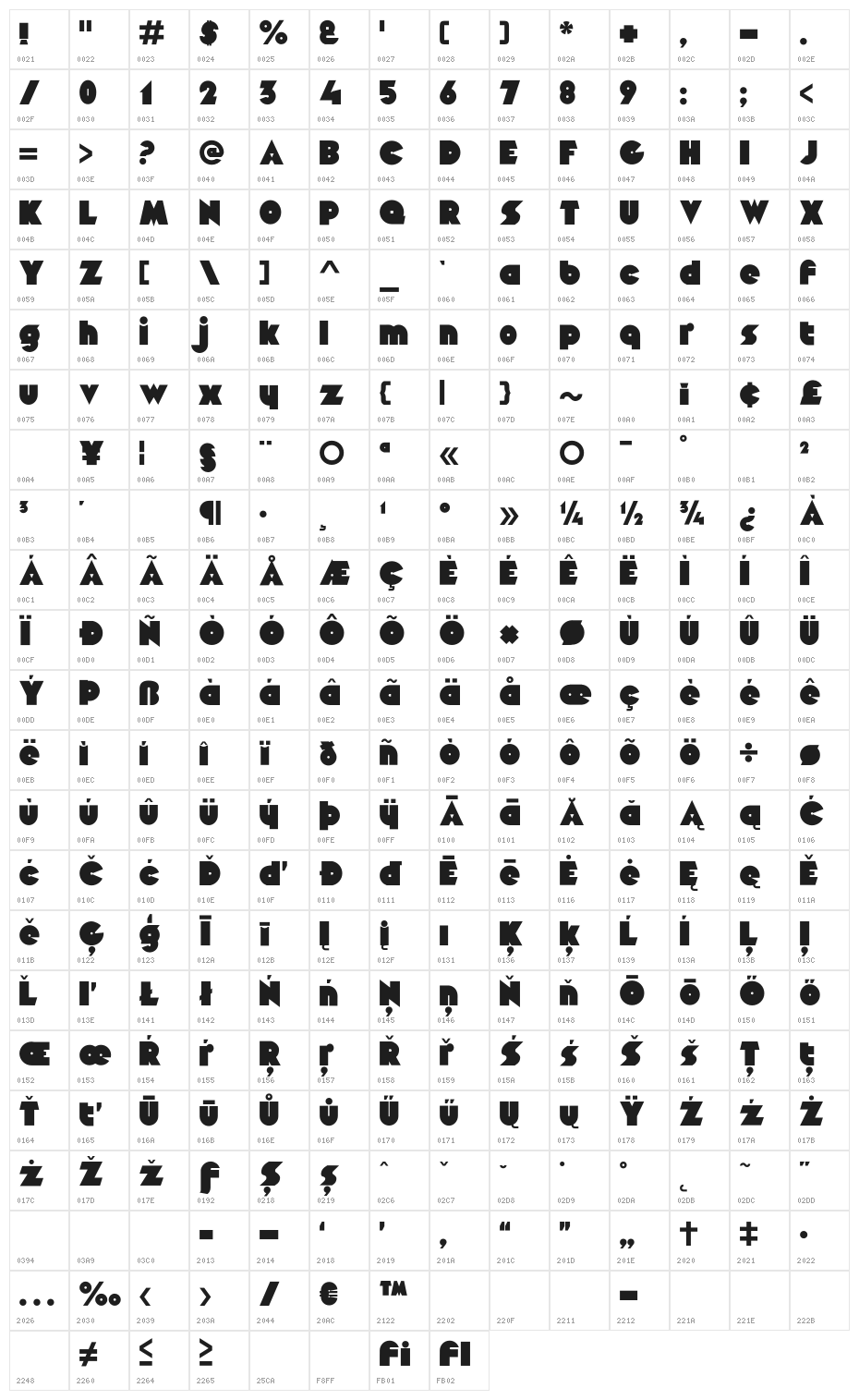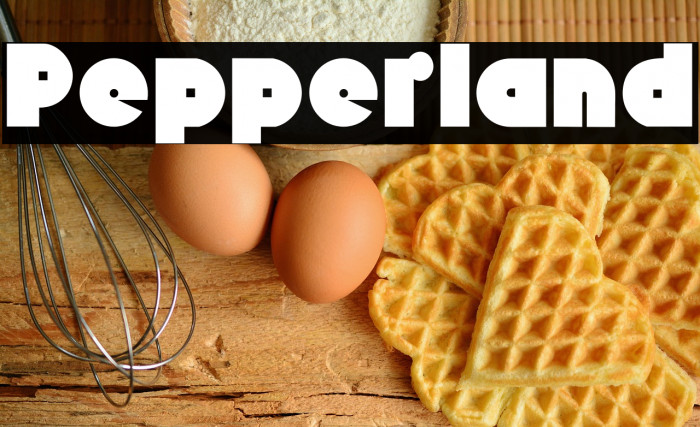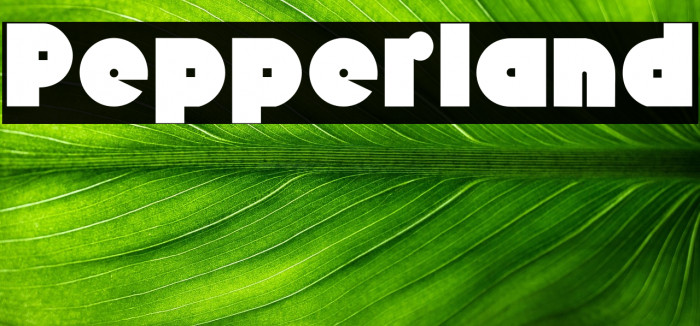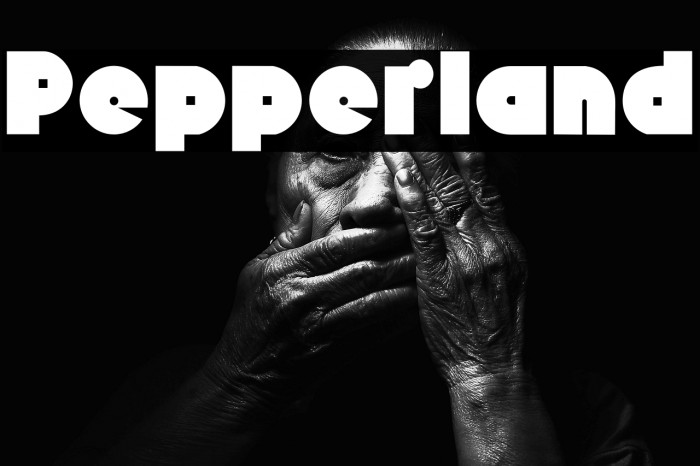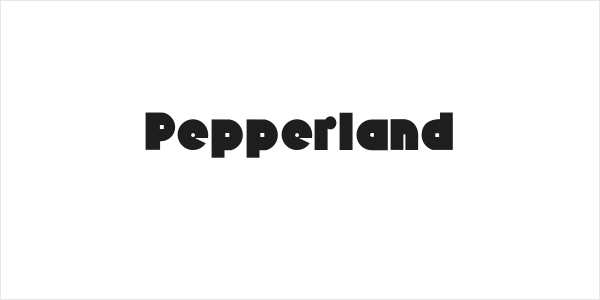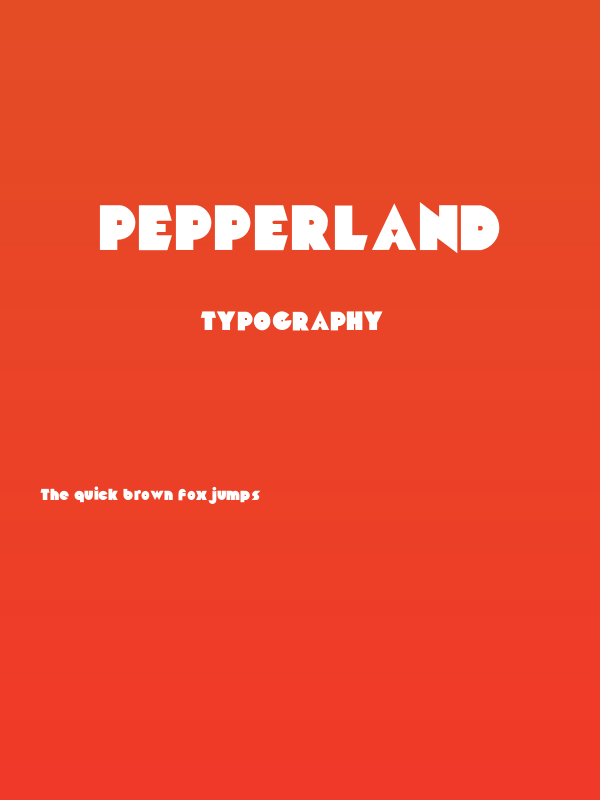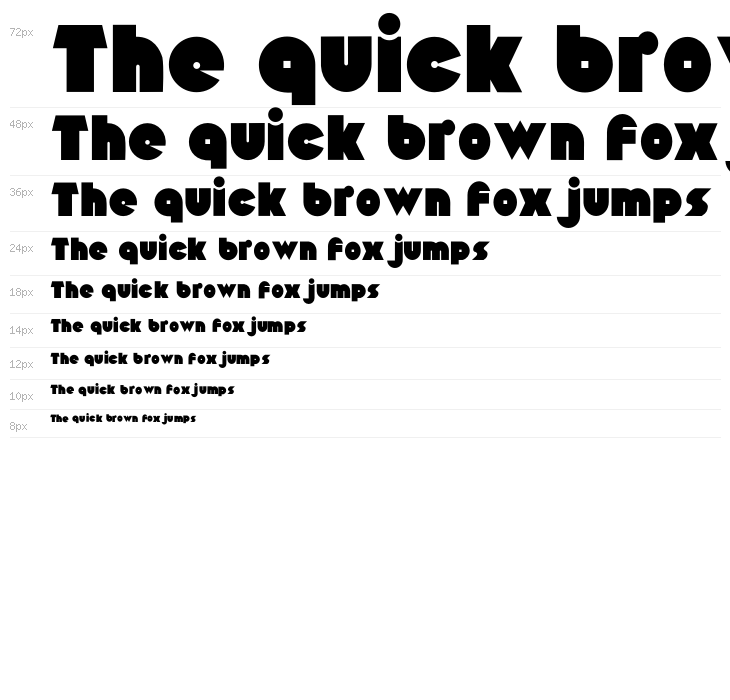
Pepperland Font
Pepperland Description
This font features a bold, geometric style with a playful and retro aesthetic. The characters are constructed with strong, angular shapes and exhibit a distinct, blocky appearance. The uppercase letters are particularly striking, with some incorporating unique cutouts and angles that add to the font's dynamic look. The lowercase letters maintain a consistent style, offering a harmonious blend with the uppercase set. Numbers and special characters follow the same bold and geometric design, ensuring uniformity across all glyphs. The overall impression is one of boldness and creativity, making it suitable for eye-catching designs.
| Overall Style | Retro, Playful |
| Proposed Projects | Ideal for posters, album covers, branding projects, and any design requiring a bold, retro flair. |